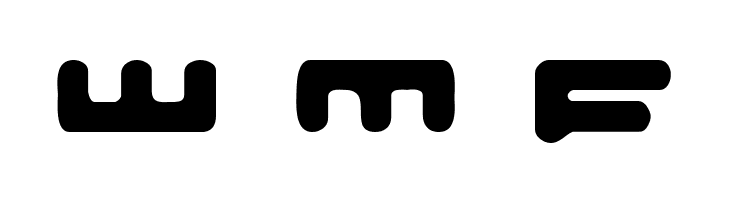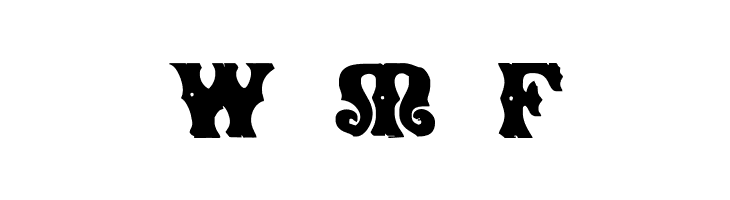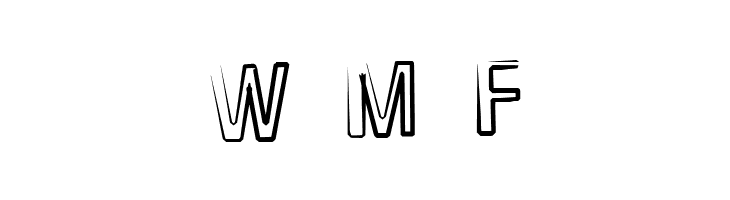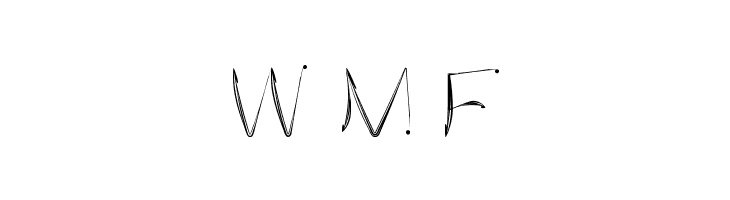
A decorative set of intricate and artistic symbols with a vintage, mystical style.
A bold, slab serif font with a vintage yet modern appeal, ideal for headlines.
A bold, shadowed font with a classic serif touch, perfect for impactful headlines.
Bold, circular pictogram icon set with high contrast.
A bold, modern font with a mix of solid and outlined elements for a striking look.
A bold, decorative font with characters encased in circles, offering a modern and playful style.
Playful, animal-themed decorative font with circular anteater motifs.
A bold, eclectic display typeface with modern and vintage influences.
A collection of intricate, mystical symbols with esoteric and celestial motifs.
A playful, handwritten font with a whimsical and romantic touch.
A whimsical and artistic font with elegant curves and decorative dots.
An ornate blackletter font with bold, intricate designs and sharp, angular edges.
A bold, rounded font with a playful and approachable style.
An abstract, decorative design with crescent and circular shapes, resembling a secret code.
A decorative and abstract font with fluid, calligraphic-inspired letterforms.
A playful, hand-drawn font with whimsical, decorative elements.
A playful, hand-drawn font with a whimsical and informal style.
A geometric, layered outline font with a modern, futuristic style.
A light, elegant italic font with a refined and sophisticated style.
A bold serif font with elegant curves and strong vertical lines.